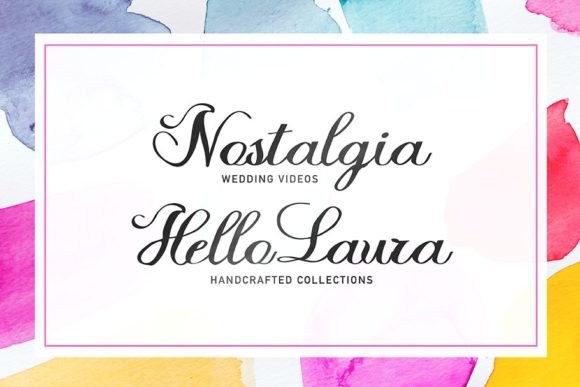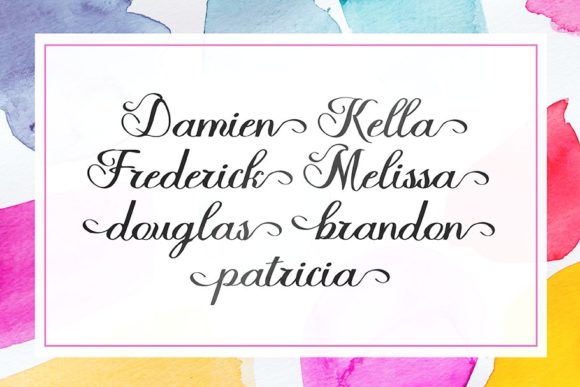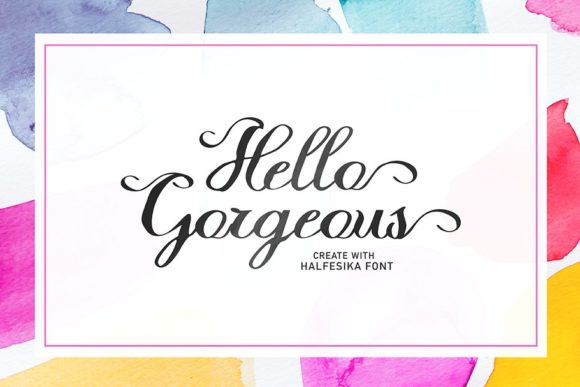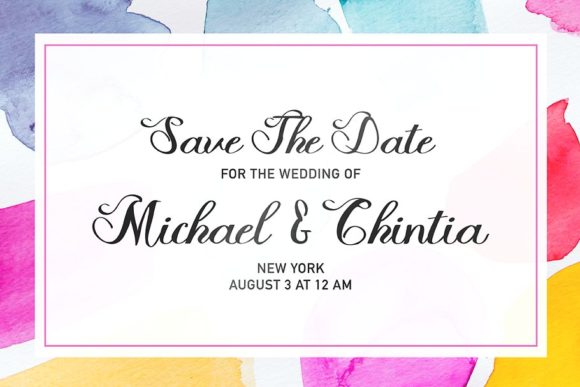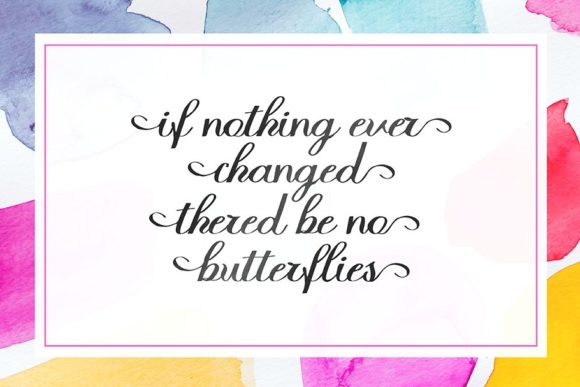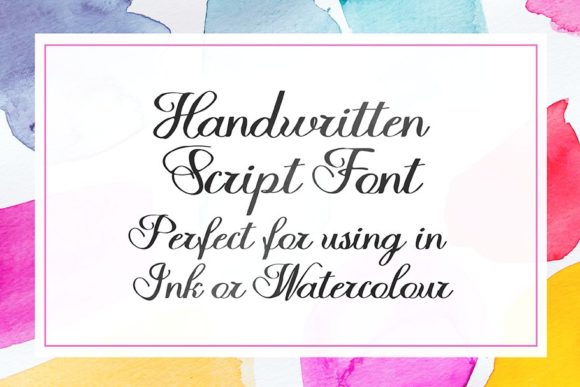
Discover the Charm of Halfesika Script Font: A Sweet and Romantic Handwritten Font
Are you a designer or crafter looking for a font that exudes warmth, elegance, and a touch of whimsy? Look no further than the Halfesika Script Font, a beautiful handwritten font that is sure to capture your heart. With its sweet feel and romantic charm, Halfesika is the perfect addition to any design project that requires a personal touch.
What is Halfesika Script Font?
Halfesika is a carefully crafted handwritten font that boasts a unique and charming personality. Its elegant strokes and flowing curves make it an ideal choice for a wide range of design applications, from wedding invitations and greeting cards to branding and packaging. Whether you’re looking to add a touch of sophistication or a dash of playfulness to your design, Halfesika is sure to impress.
Key Features of Halfesika Script Font
- Handwritten with love: Halfesika is a genuine handwritten font, crafted with precision and care to ensure that every letter and stroke is unique and authentic.
- Sweet and romantic feel: The font’s sweet and romantic charm makes it perfect for designs that require a touch of elegance and whimsy.
- Elegant strokes and curves: Halfesika’s flowing curves and elegant strokes make it a versatile font that can be used for a wide range of design applications.
- Easy to read: Despite its elegant and cursive nature, Halfesika is surprisingly easy to read, making it perfect for body text and longer design projects.
Uses for Halfesika Script Font
Halfesika is a versatile font that can be used for a wide range of design applications, including:
- Wedding invitations and stationery: Add a touch of romance and elegance to your wedding invitations, save-the-dates, and other stationery with Halfesika.
- Greeting cards and gift tags: Halfesika is perfect for creating beautiful and personalized greeting cards and gift tags for special occasions.
- Branding and packaging: Use Halfesika to add a touch of whimsy and elegance to your branding and packaging, making your products stand out on store shelves.
- Signage and displays: Halfesika is a great choice for signage and displays, adding a touch of personality and charm to your message.
Tips for Using Halfesika Script Font
To get the most out of Halfesika, here are a few tips to keep in mind:
- Pair with contrasting fonts: Pair Halfesika with contrasting fonts, such as bold sans-serifs or elegant serifs, to create visual interest and hierarchy.
- Experiment with colors: Halfesika looks great in a range of colors, from soft pastels to rich jewel tones. Experiment with different colors to find the perfect fit for your design.
- Use for headlines and titles: Halfesika is perfect for headlines and titles, adding a touch of elegance and whimsy to your design.
In conclusion, Halfesika Script Font is a beautiful and charming handwritten font that is sure to capture your heart. With its sweet feel and romantic charm, Halfesika is the perfect addition to any design project that requires a personal touch. Whether you’re a designer or crafter, Halfesika is a versatile font that can be used for a wide range of design applications. So why wait? Fall in love with Halfesika today and take your designs to the next level!